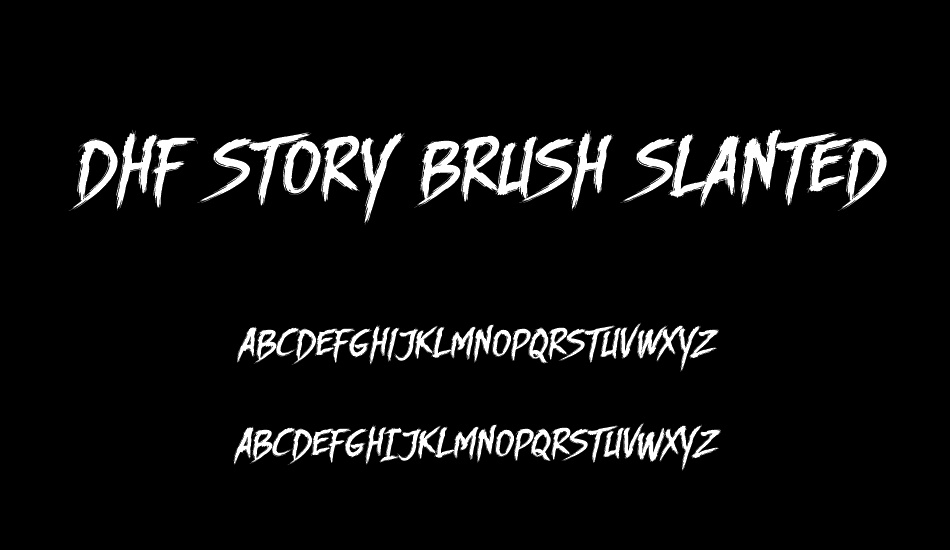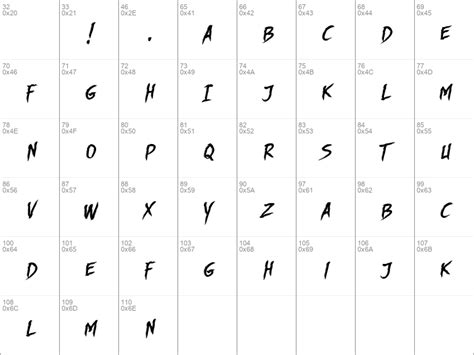
Story Brush Slanted Font Free Download - Story brush regular (400) story brush regular (slanted) (400) daviton. You can purchase full version and. Story brush is the high detailed brush font that has over 240 glyphs. You can use this font for personal purpose.
You can use this font for personal purpose. You can purchase full version and. Story brush regular (400) story brush regular (slanted) (400) daviton. Story brush is the high detailed brush font that has over 240 glyphs.
You can purchase full version and. Story brush is the high detailed brush font that has over 240 glyphs. Story brush regular (400) story brush regular (slanted) (400) daviton. You can use this font for personal purpose.
Story Brush Slanted Font by Majestype Font Bros
Story brush is the high detailed brush font that has over 240 glyphs. Story brush regular (400) story brush regular (slanted) (400) daviton. You can purchase full version and. You can use this font for personal purpose.
You can use this font for personal purpose. Story brush is the high detailed brush font that has over 240 glyphs. You can purchase full version and. Story brush regular (400) story brush regular (slanted) (400) daviton.
Story brush regular (400) story brush regular (slanted) (400) daviton. Story brush is the high detailed brush font that has over 240 glyphs. You can purchase full version and. You can use this font for personal purpose.
Story brush is the high detailed brush font that has over 240 glyphs. Story brush regular (400) story brush regular (slanted) (400) daviton. You can use this font for personal purpose. You can purchase full version and.
Story brush regular (400) story brush regular (slanted) (400) daviton. You can use this font for personal purpose. You can purchase full version and. Story brush is the high detailed brush font that has over 240 glyphs.
Story brush is the high detailed brush font that has over 240 glyphs. You can purchase full version and. Story brush regular (400) story brush regular (slanted) (400) daviton. You can use this font for personal purpose.
You can use this font for personal purpose. You can purchase full version and. Story brush is the high detailed brush font that has over 240 glyphs. Story brush regular (400) story brush regular (slanted) (400) daviton.
DHF Story Brush Slanted шрифт
Story brush regular (400) story brush regular (slanted) (400) daviton. You can purchase full version and. Story brush is the high detailed brush font that has over 240 glyphs. You can use this font for personal purpose.
You can use this font for personal purpose. You can purchase full version and. Story brush regular (400) story brush regular (slanted) (400) daviton. Story brush is the high detailed brush font that has over 240 glyphs.
Story Brush Regular (400) Story Brush Regular (Slanted) (400) Daviton.
Story brush is the high detailed brush font that has over 240 glyphs. You can use this font for personal purpose. You can purchase full version and.